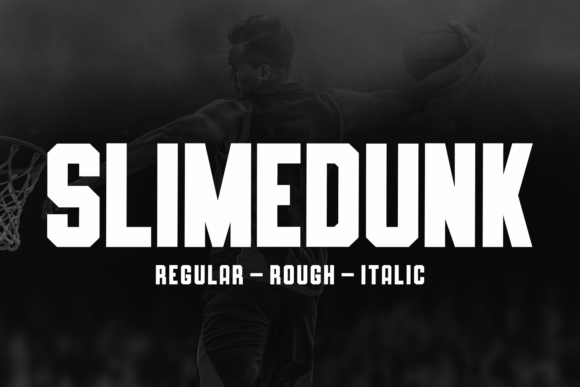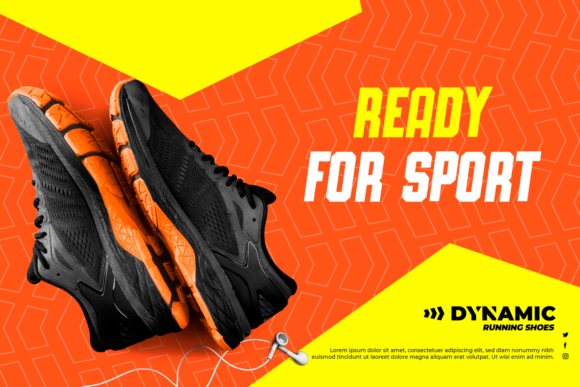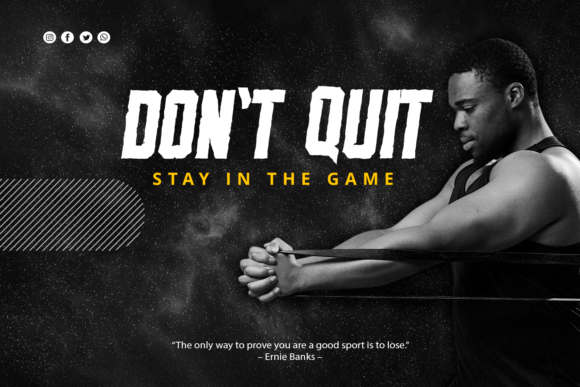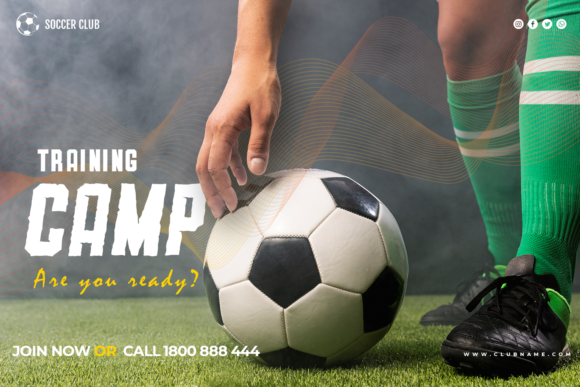
Slimedunk Font: A Bold Sans Serif for Sport Logos & Headline Typography
About the Slimedunk Font
Unleash your creativity with Slimedunk Font, a versatile font perfect for a wide range of applications. Slimedunk is a bold and classic sans serif font. This font would perfect for E-sport Logo, film poster, game, sport and any other projects.
Slimedunk Font Usage Examples
Slimedunk Font Example